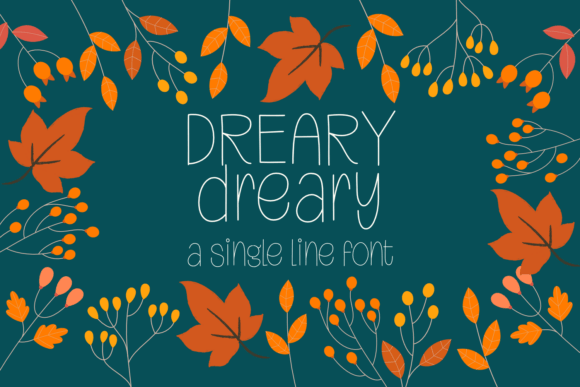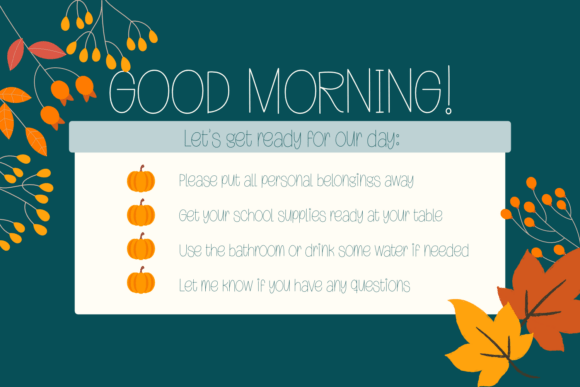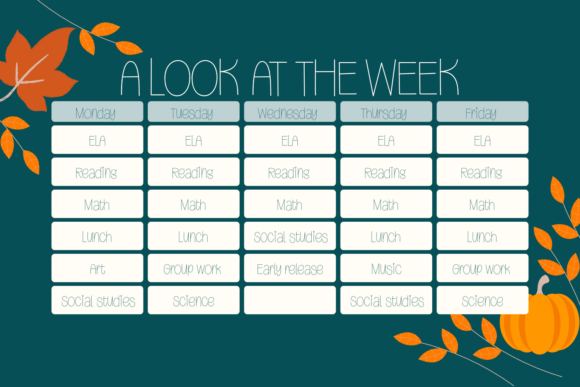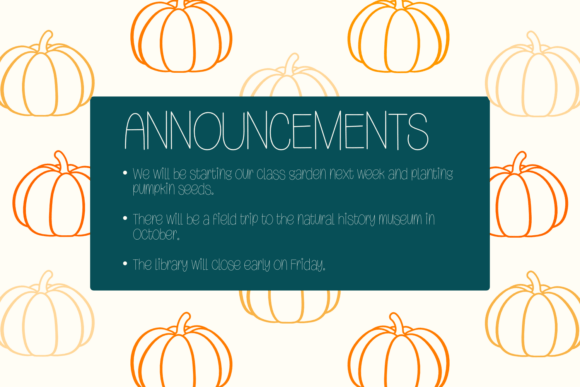
Dreary Font: A Playful Single Line Font for Cute DIY & Craft Projects
About the Dreary Font
Welcome to the world of Dreary Font, a typeface that will inspire your next great project. Dreary Single Line, a font that brings a unique blend of fun, simplicity, creativity, and playfulness to your designs. This font is meticulously crafted to deliver a funny and whimsical aesthetic, making it perfect for a wide range of applications.
Dreary Single Line excels in headlines, short display text, and playful branding projects where a lighthearted, whimsical feel is desired. It’s ideal for children’s books, packaging for fun products, and social media graphics. However, its quirky nature makes it unsuitable for body text or UI elements requiring high readability. Long paragraphs set in this font would be difficult to read.
The font’s personality is undeniably fun and informal. To maintain visual balance, pair Dreary Single Line with a clean sans-serif like Open Sans for body text or a more structured serif like Merriweather for supporting elements. Alternatively, a geometric sans-serif such as Roboto could create a nice contrast.
This playful aesthetic works best for brands targeting younger audiences or those with a lighthearted brand voice. Avoid using it for projects requiring sophistication or seriousness.
Dreary Font Usage Examples
Dreary Font Example